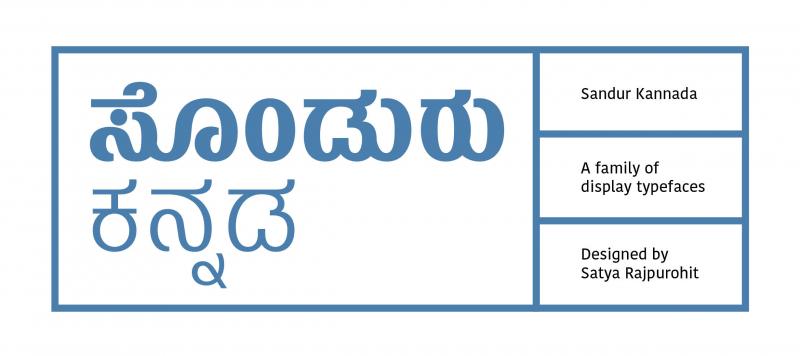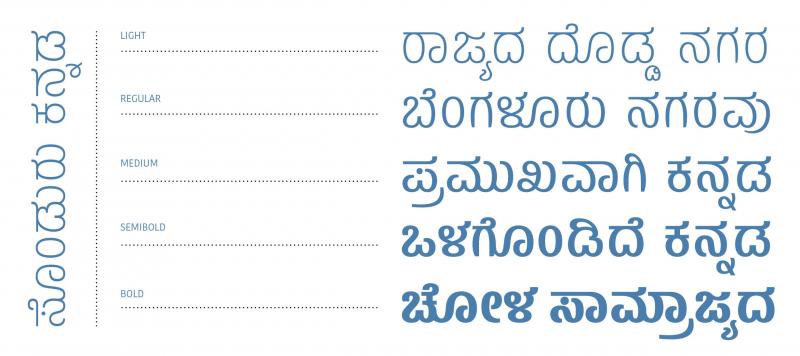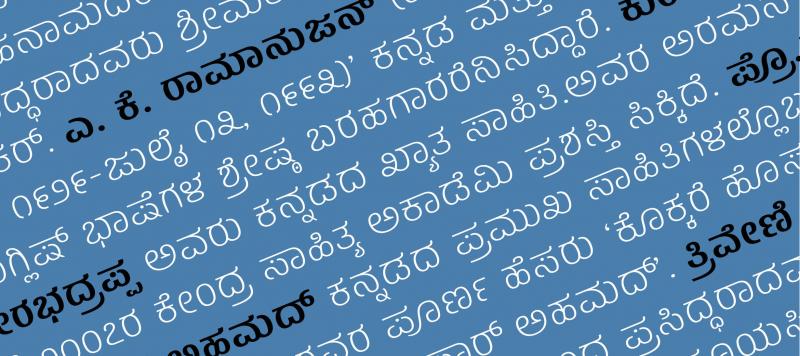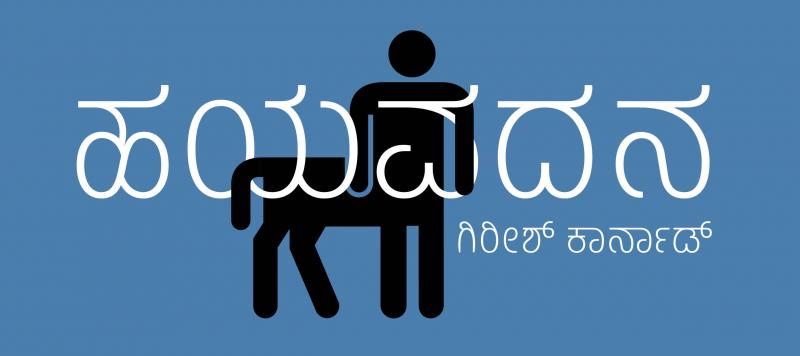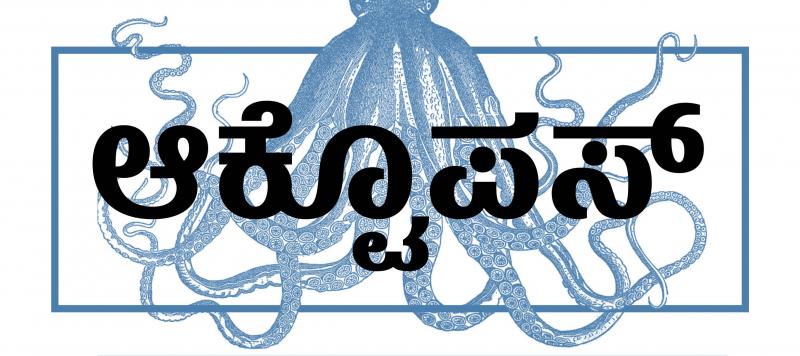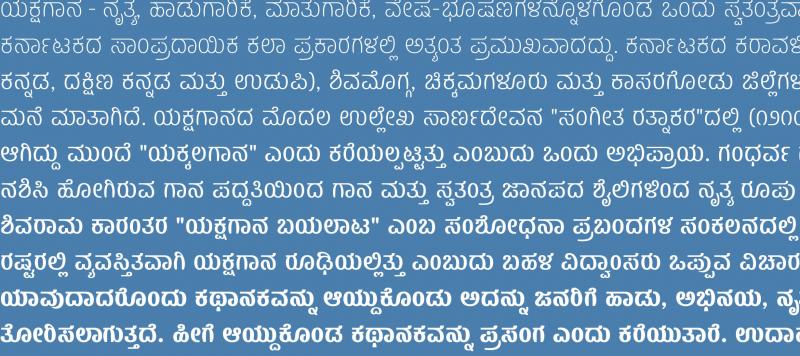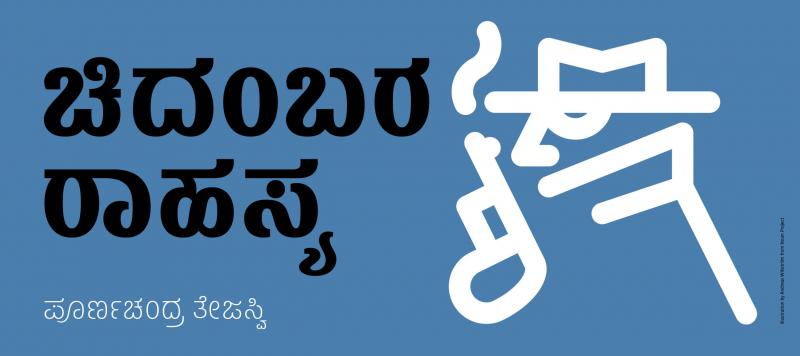
Sandur Kannada is a family of display typefaces. The fonts reverse the traditional Kannada-script stoke contrast to arrive at a vertically stressed, condensed typeface. The lightest weight in the Sandur Kannada family is almost monolinear, while the boldest weight features a high amount of contrast. This allows the stress to subtly gradate from weight to weight, along the axis that runs from Light to Bold. The condensed proportions of Sandur Kannada make it suitable for setting headlines and other short large-sized texts. And what does the name mean? Sandur is a city in the Indian state of Karnataka. Sandur Kannada was designed in Ahmedabad by ITF co-founder Satya Rajpurohit.
Family Name | Sandur Kannada |
Designer(s) | Satya Rajpurohit |